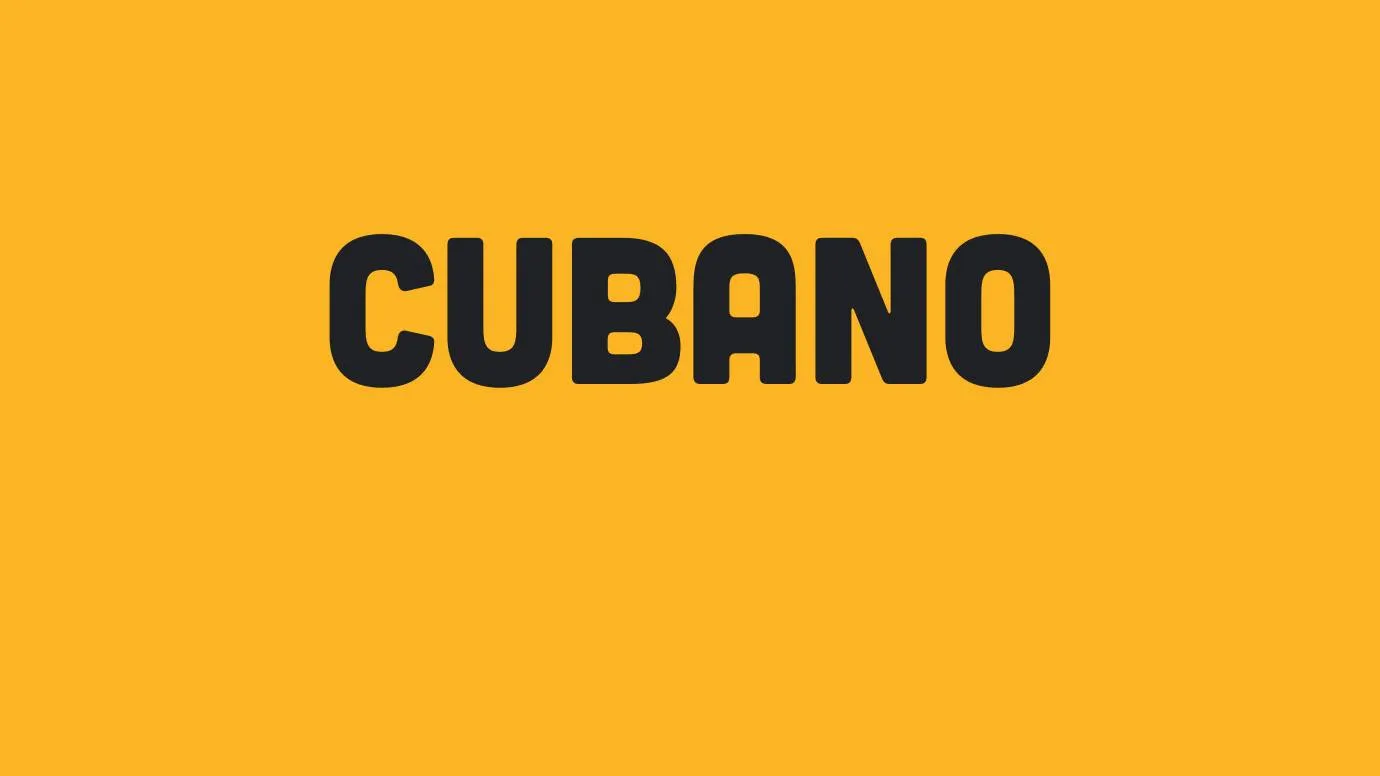
Cubano Font Family is a bold high-quality sans serif typeface family that is offering great features and styles for modern designs. This staggering typeface was designed by a famous graphic designer Chandler Van De Water.
It has rounded corners, heavy strokes, and condensed letterforms that can be chosen as a relevant layout for any kind of design. It is available in OpenType format.
DesignerChandler Van De Water
FoundryLost Type Co-op
StyleSans Serif
Date Released2012